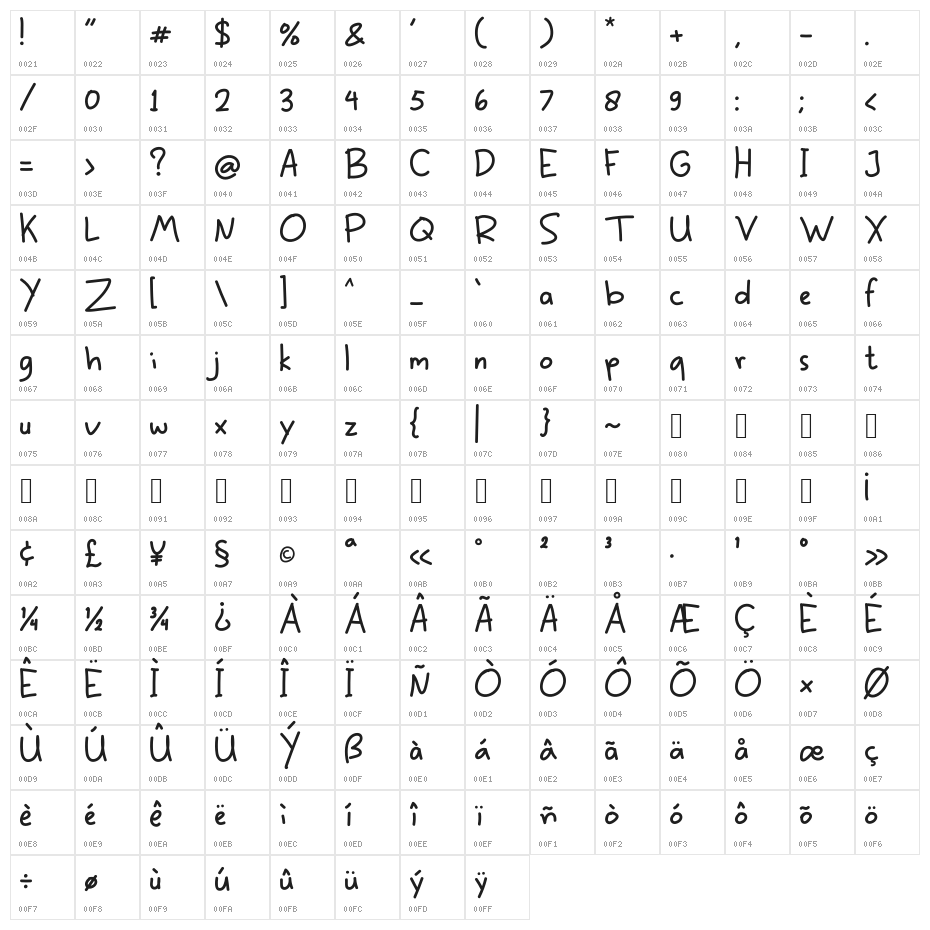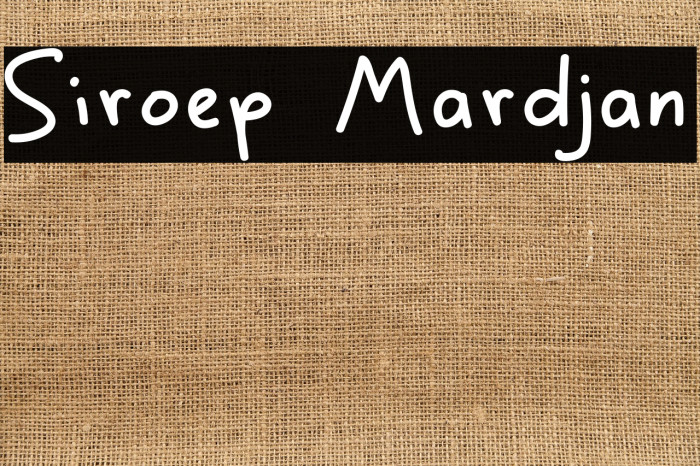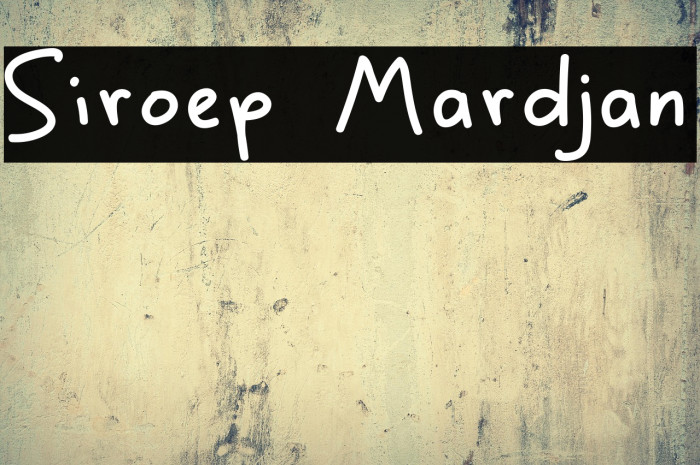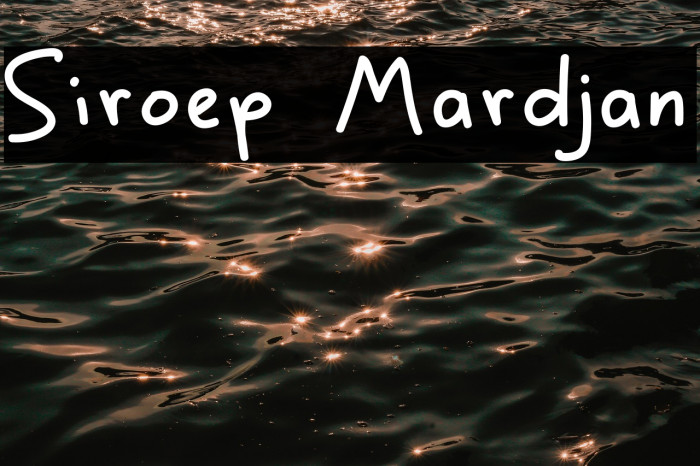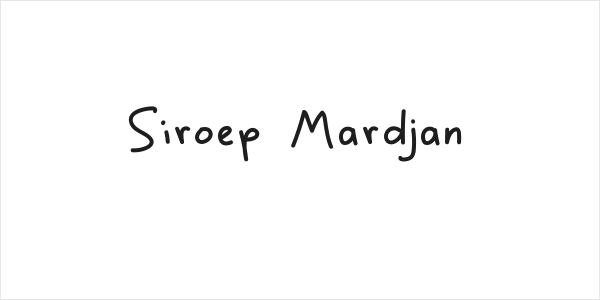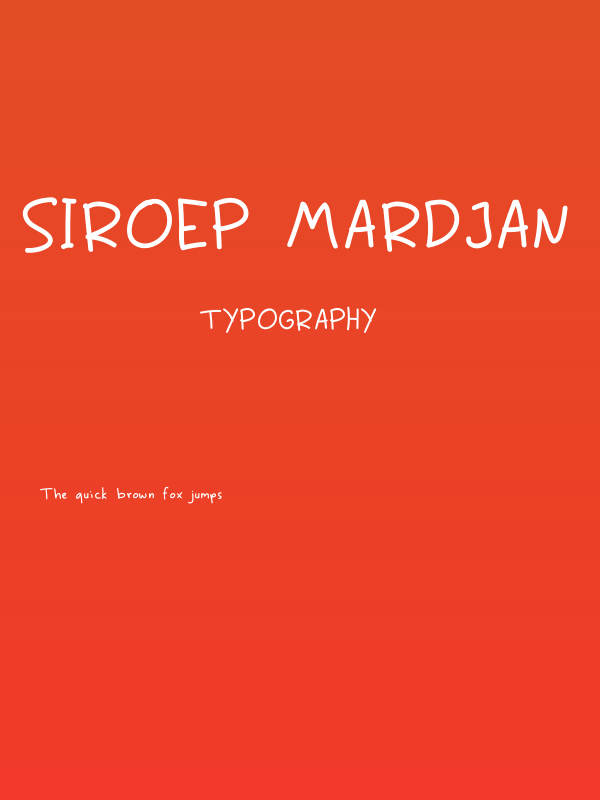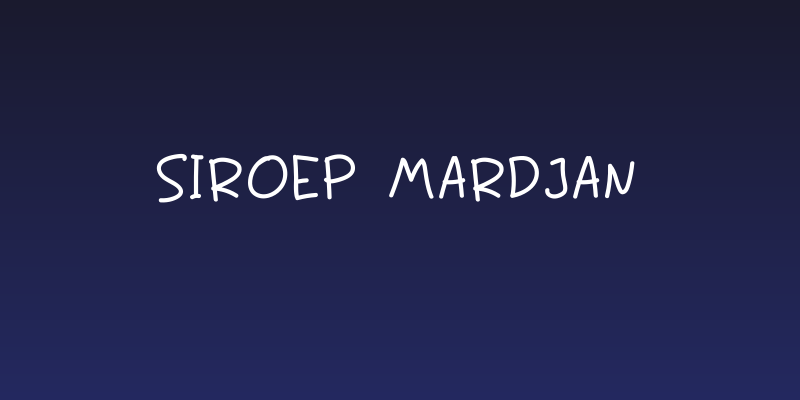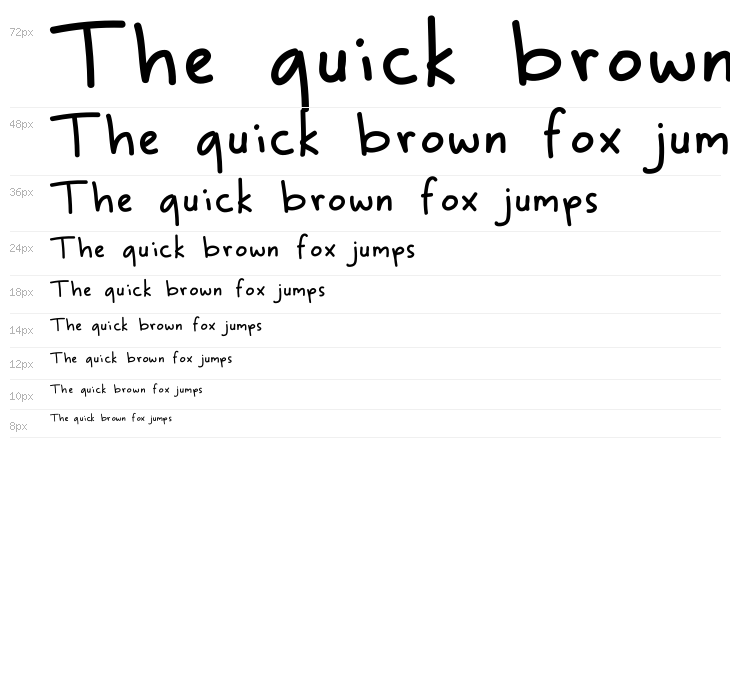
Siroep Mardjan Font
Siroep Mardjan Description
This font features a playful and informal handwritten style, characterized by its irregular strokes and casual appearance. The letters are slightly uneven, giving it a natural and organic feel. The uppercase and lowercase letters maintain a consistent style, with rounded edges and a friendly demeanor. The numerals and special characters follow the same informal aesthetic, making it suitable for projects that require a personal touch. Its legibility is maintained despite the casual style, making it versatile for various applications.
| Use Case | Headlines, Informal text, Personal projects |
| Proposed Projects | Ideal for children's books, greeting cards, personal blogs, and informal branding projects. |